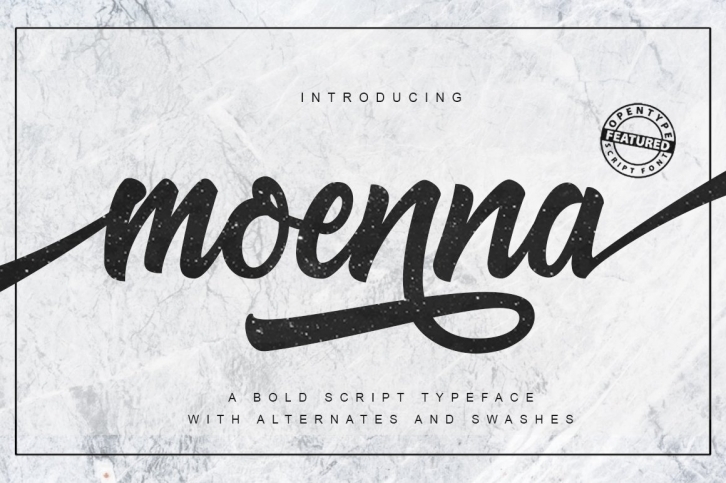
Moenna Script is a trendy and unique font with an authentic style. It was designed by cooldesignlab and it's a great choice for creative people who need such a font. It was released on October 5, 2020 and the file size is 5.22 MB. Moenna Script will add an organic vibe to any design idea!